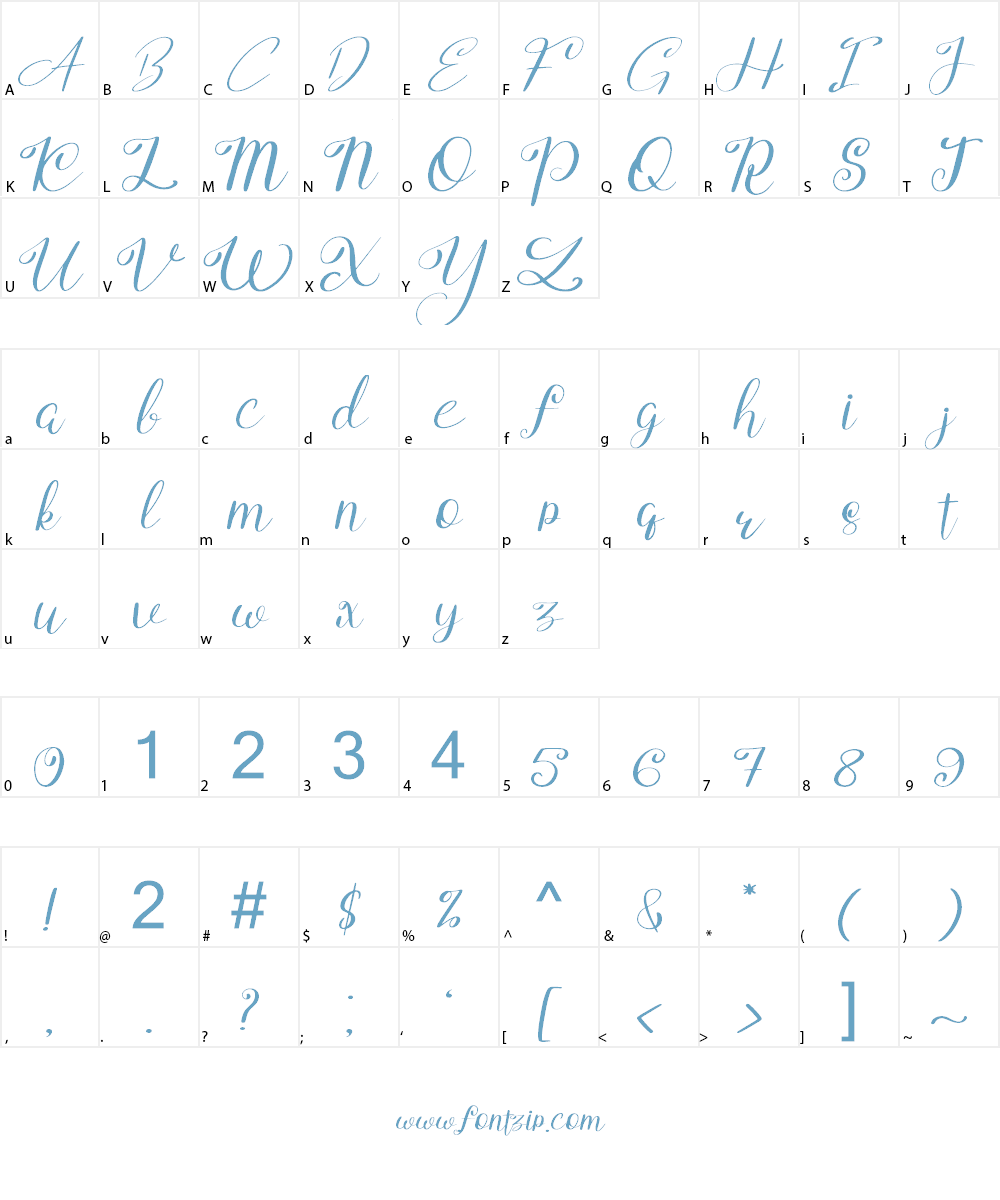
Introducing the lovely script Yumina font!
Very suitable for greeting cards, branding materials, business cards, quotes, posters, and more!
Yumina has more than 249 glyph!!